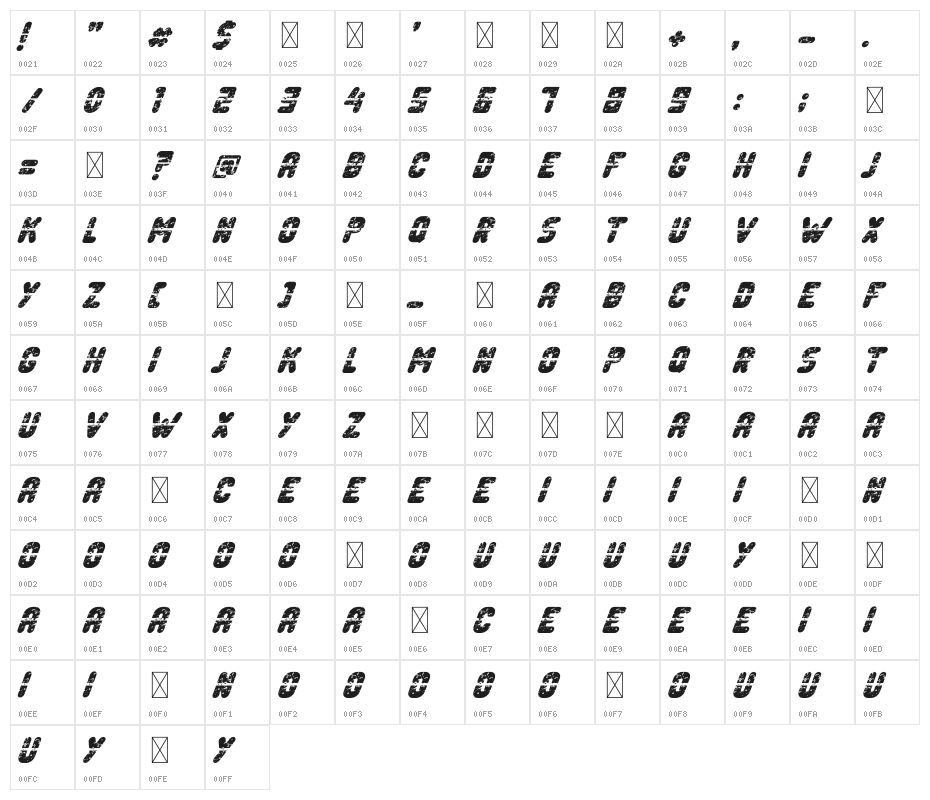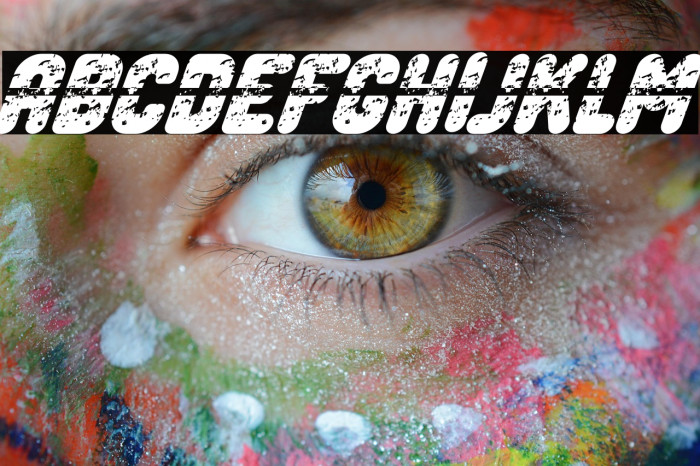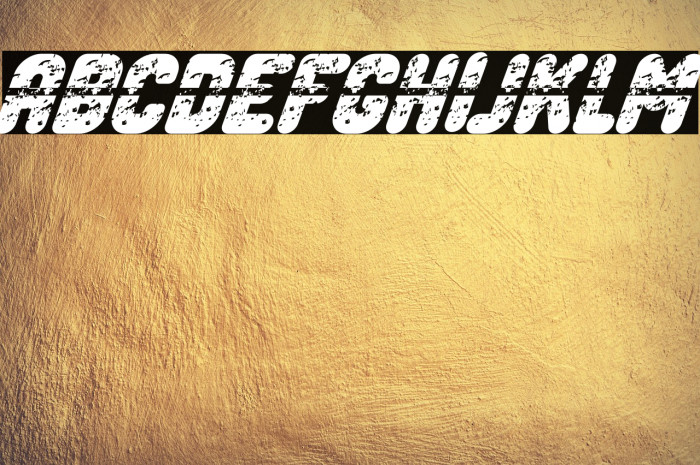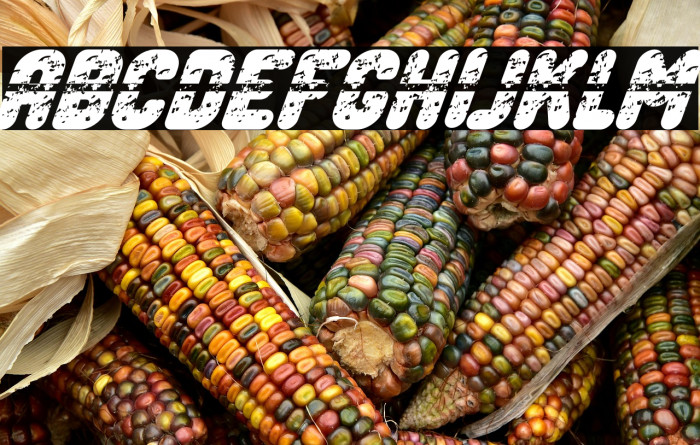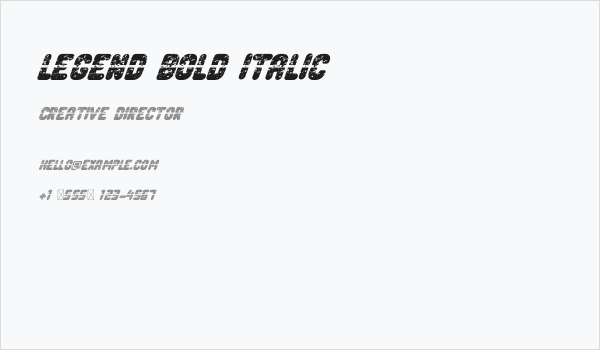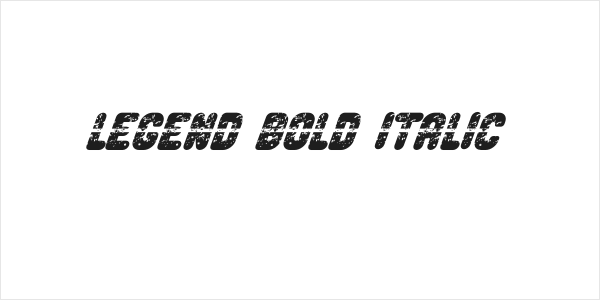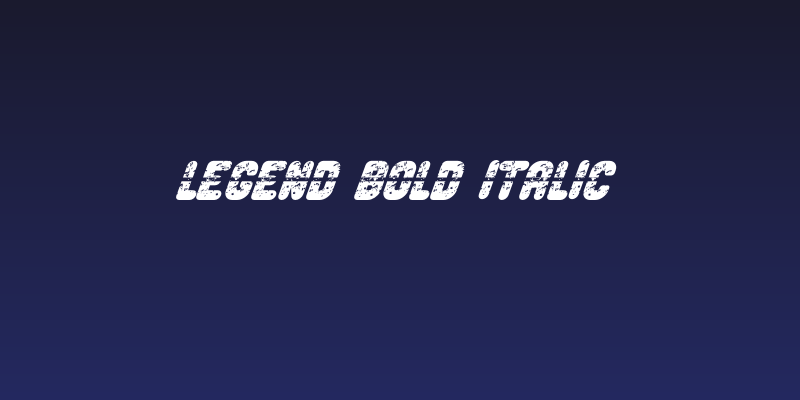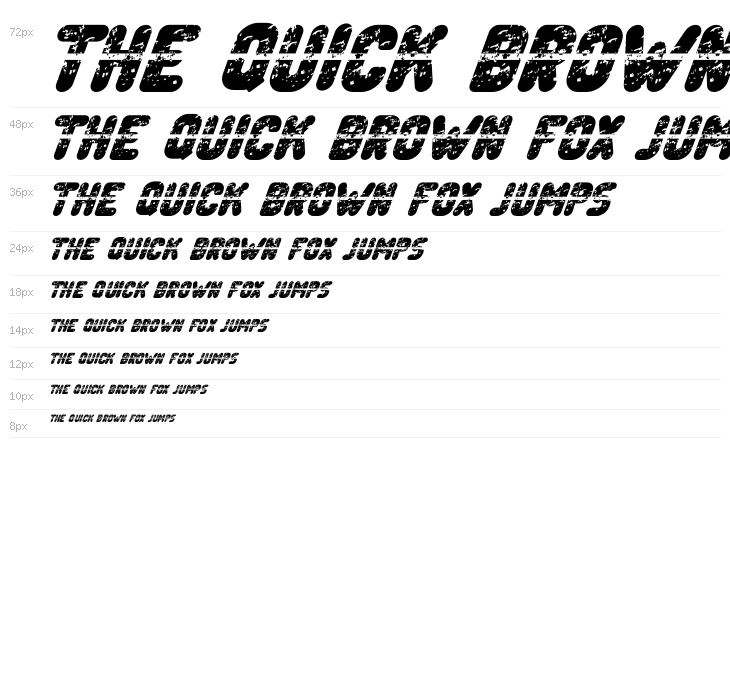
Legend Bold Italic Font
Legend Bold Italic Description
This font features a bold and italicized style with a distressed, grunge texture that gives it a rugged and worn appearance. The characters are slanted, adding a dynamic and energetic feel. The bold weight ensures strong visibility, making it suitable for impactful designs. The texture adds a layer of complexity, making each letter appear unique and visually interesting. This font is ideal for projects that require a bold statement with a touch of edginess and character.
Proposed ProjectsIdeal for posters, album covers, branding for edgy products, or any design needing a bold, textured look.